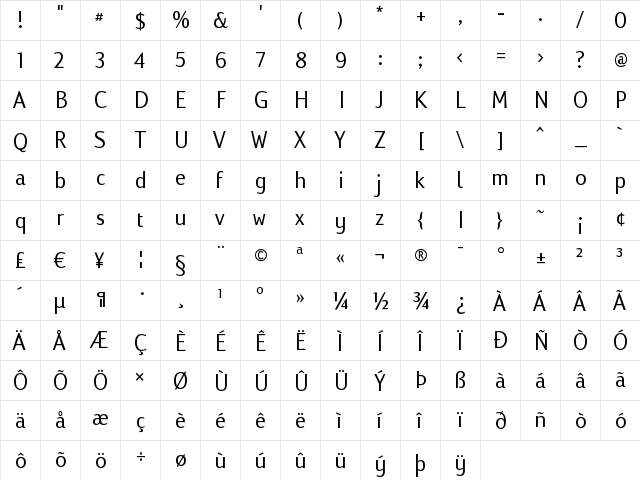
Fargo Lt DaMa Regular
Design Context for Fargo Lt DaMa Typeface
Fargo Lt DaMa is a composed and adaptable typeface that performs quietly and consistently across a wide range of design contexts. The delicate stroke weight brings airiness and refinement to layouts.